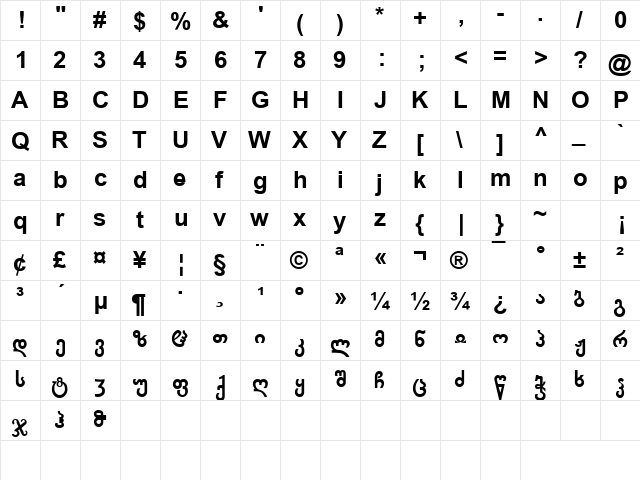
Geo_Arial Bold
Design Context for Geo_Arial Typeface
Geo_Arial is a composed and adaptable typeface that performs quietly and consistently across a wide range of design contexts. Its bold stroke weight gives it real presence on the page.